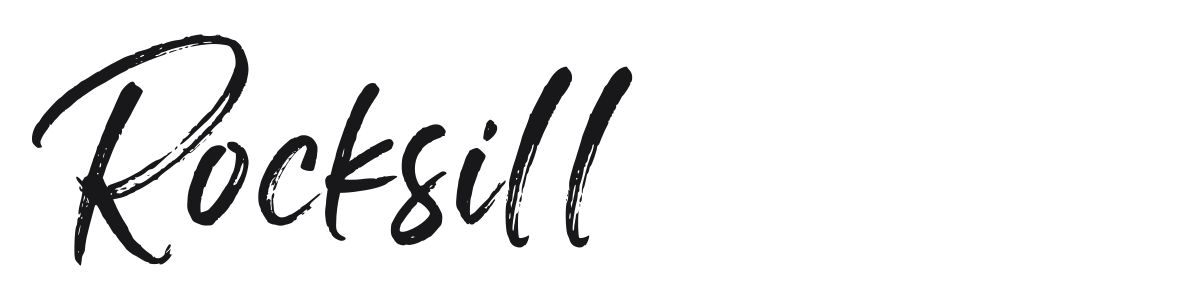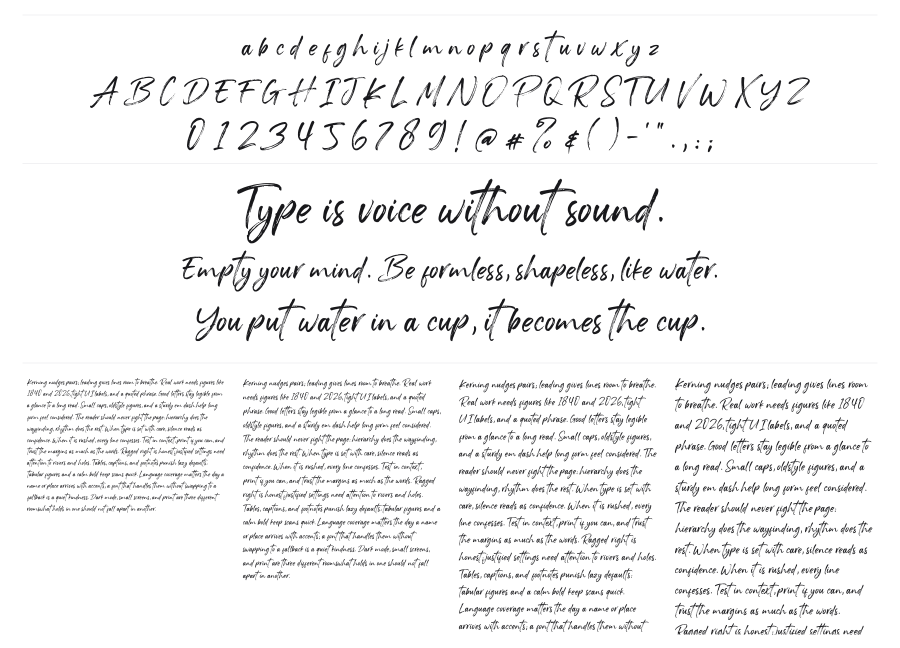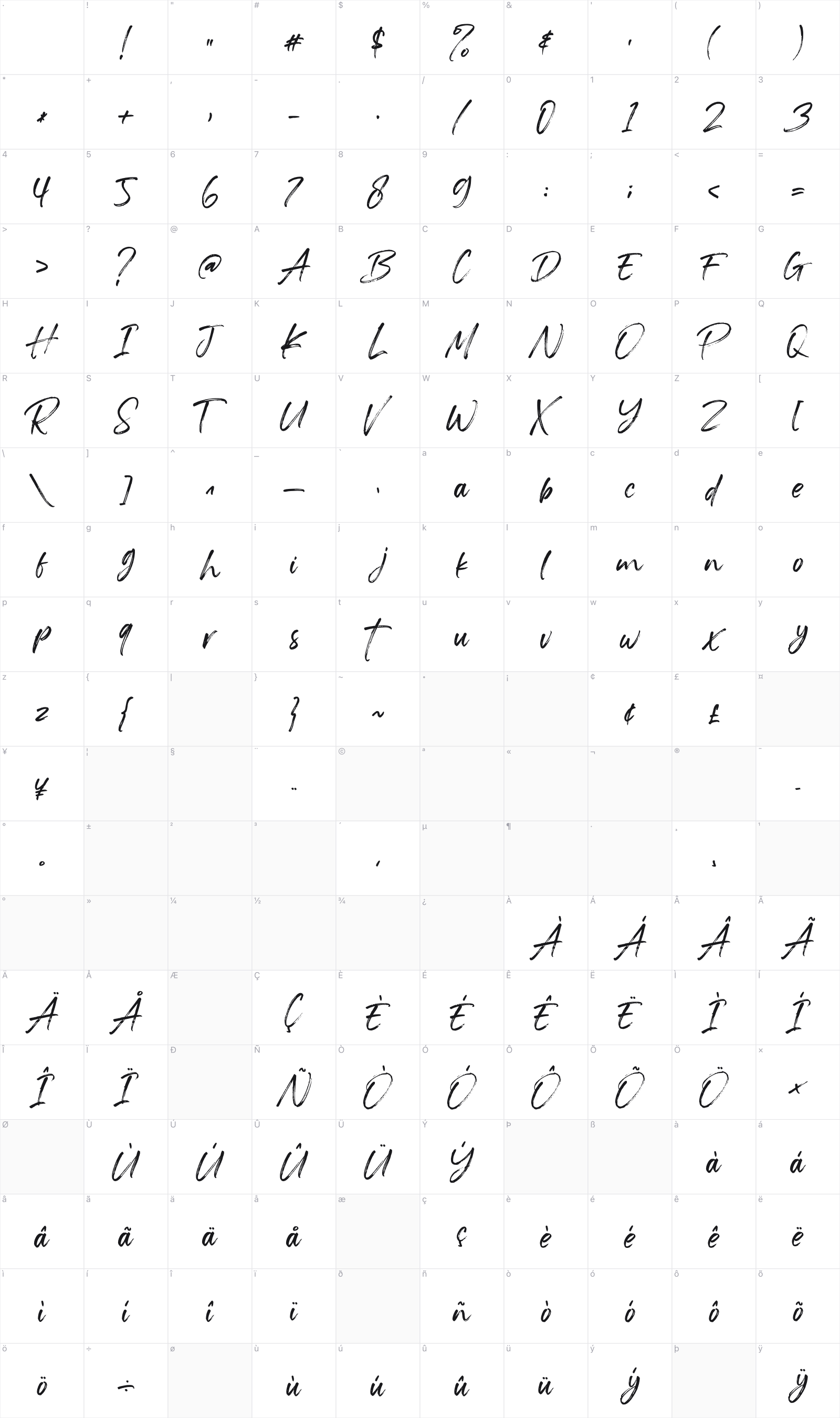
Rocksill
Rocksill is a casual brush script with genuine ink texture and confident, flowing strokes. The high contrast between thick and thin strokes, combined with visible bristle drag, gives it an authentic hand-painted quality that goes well beyond a generic calligraphy font. It suits branding, packaging, and editorial work where a natural, human touch is the point.